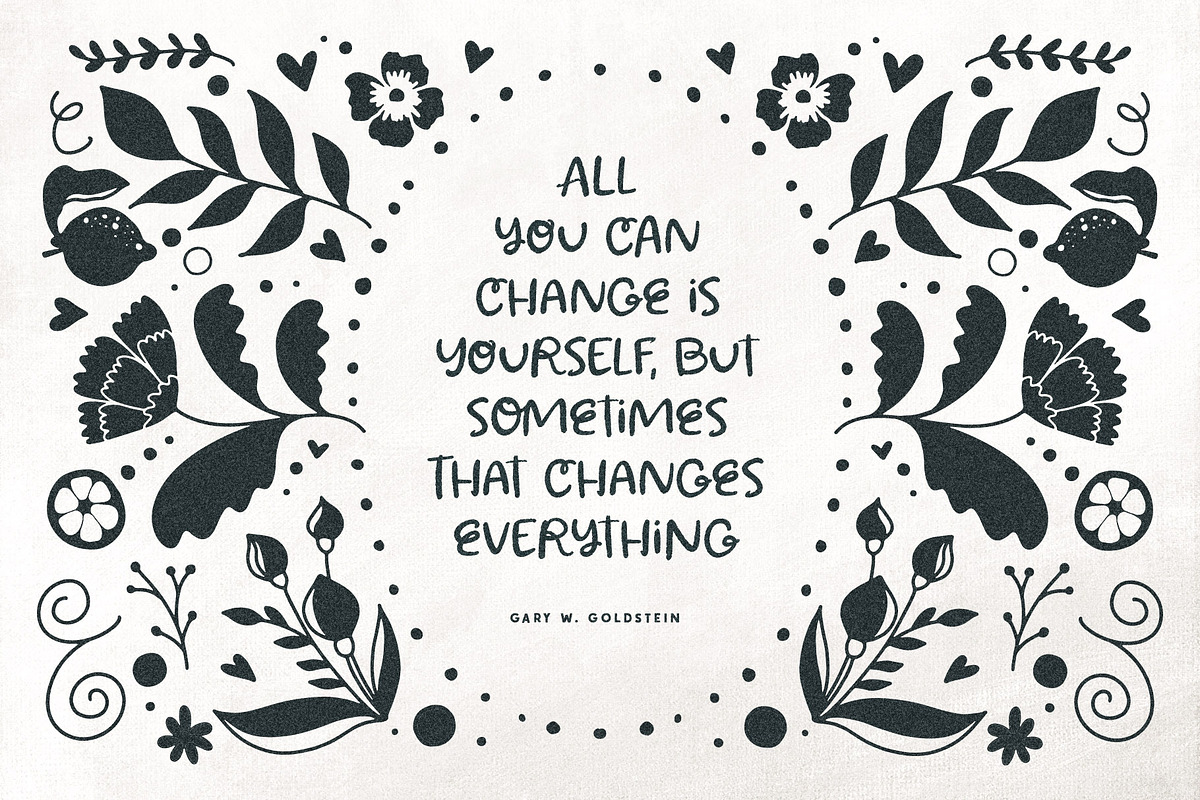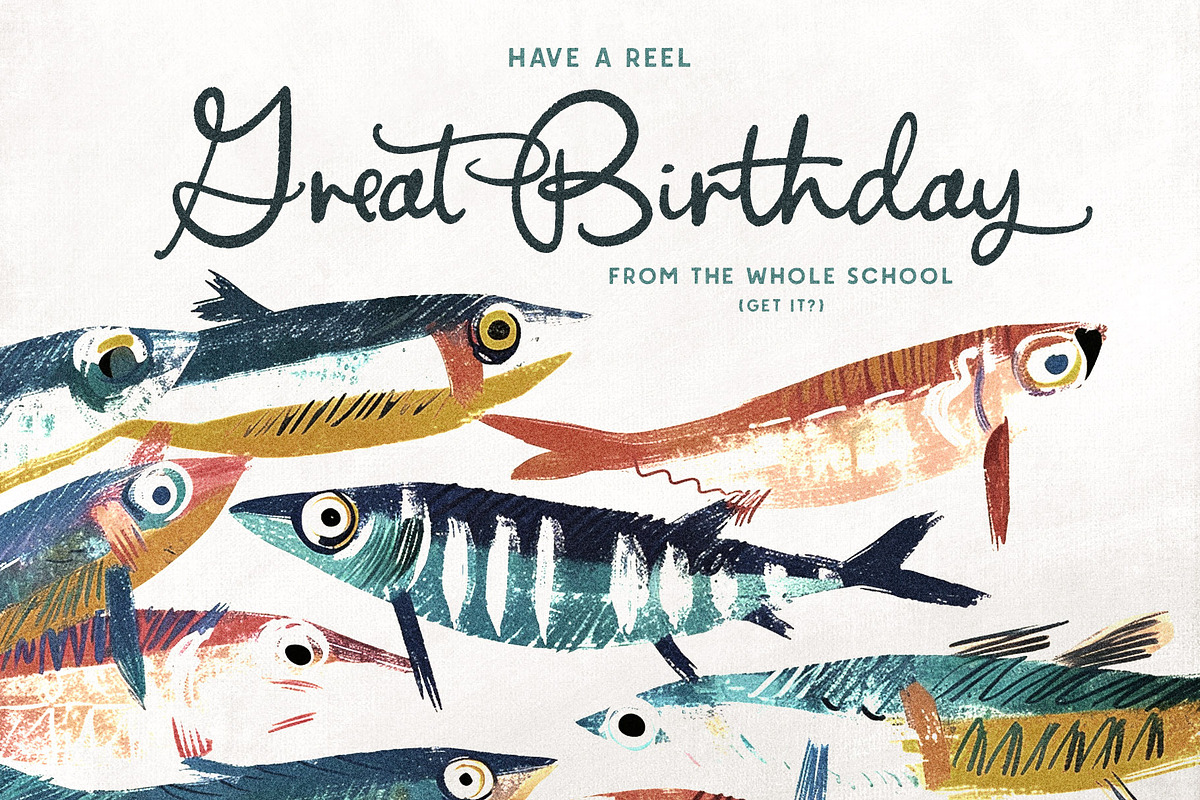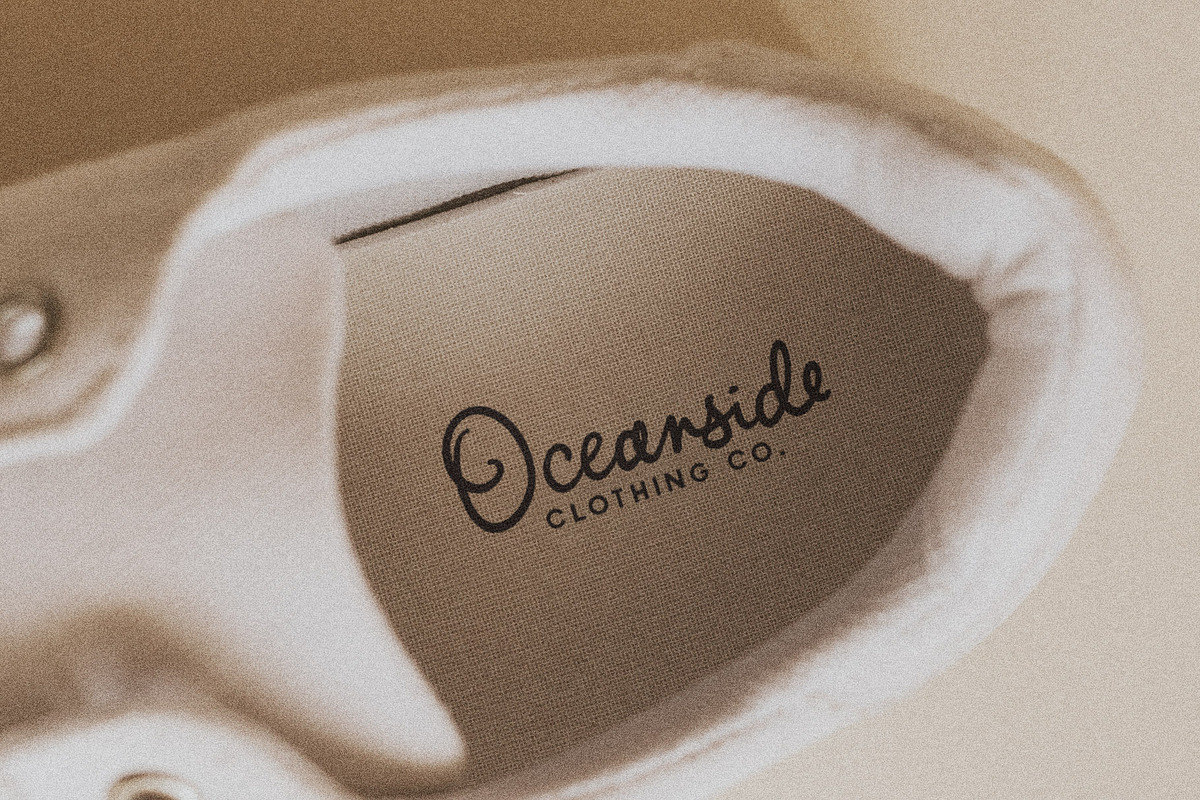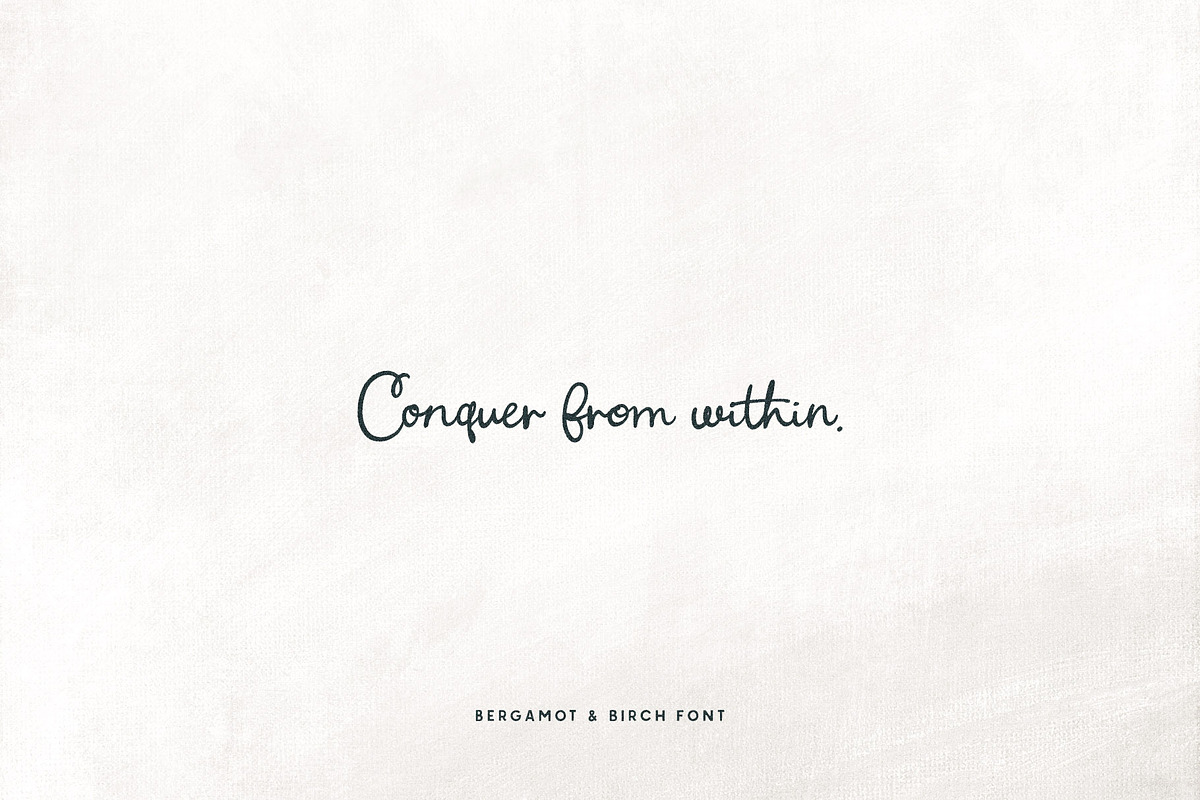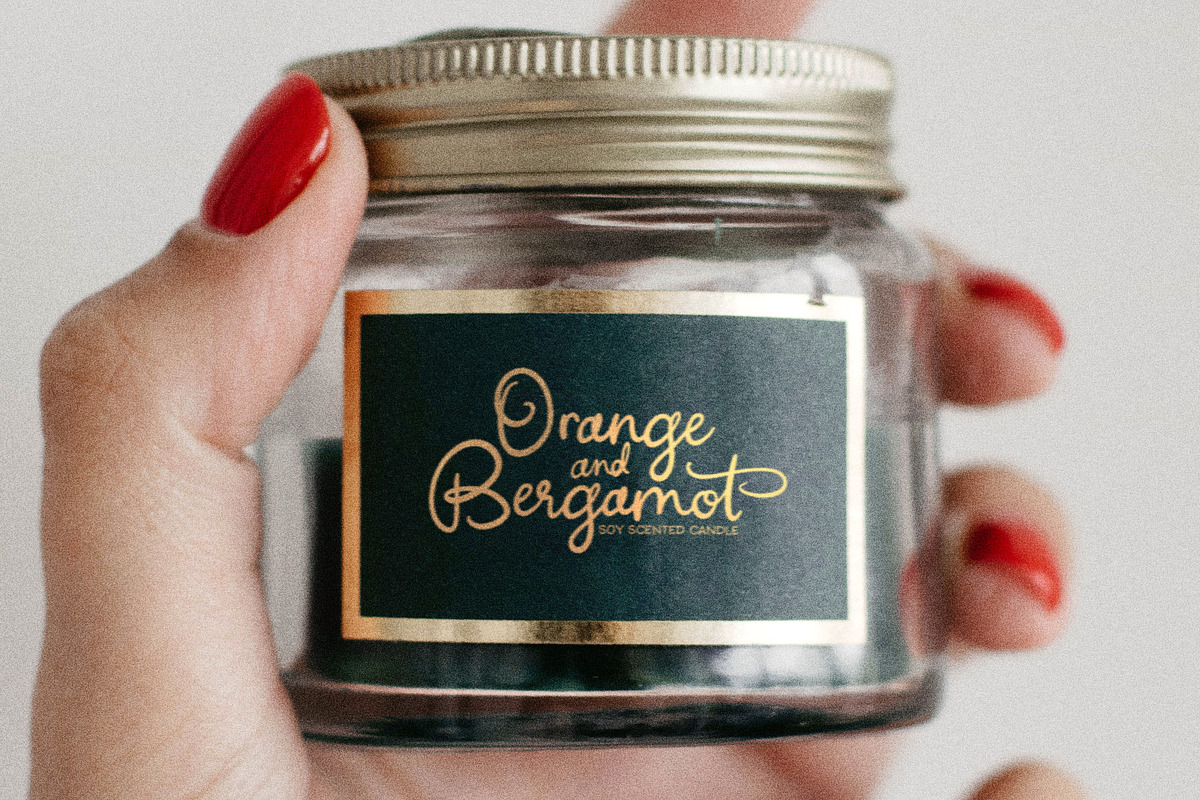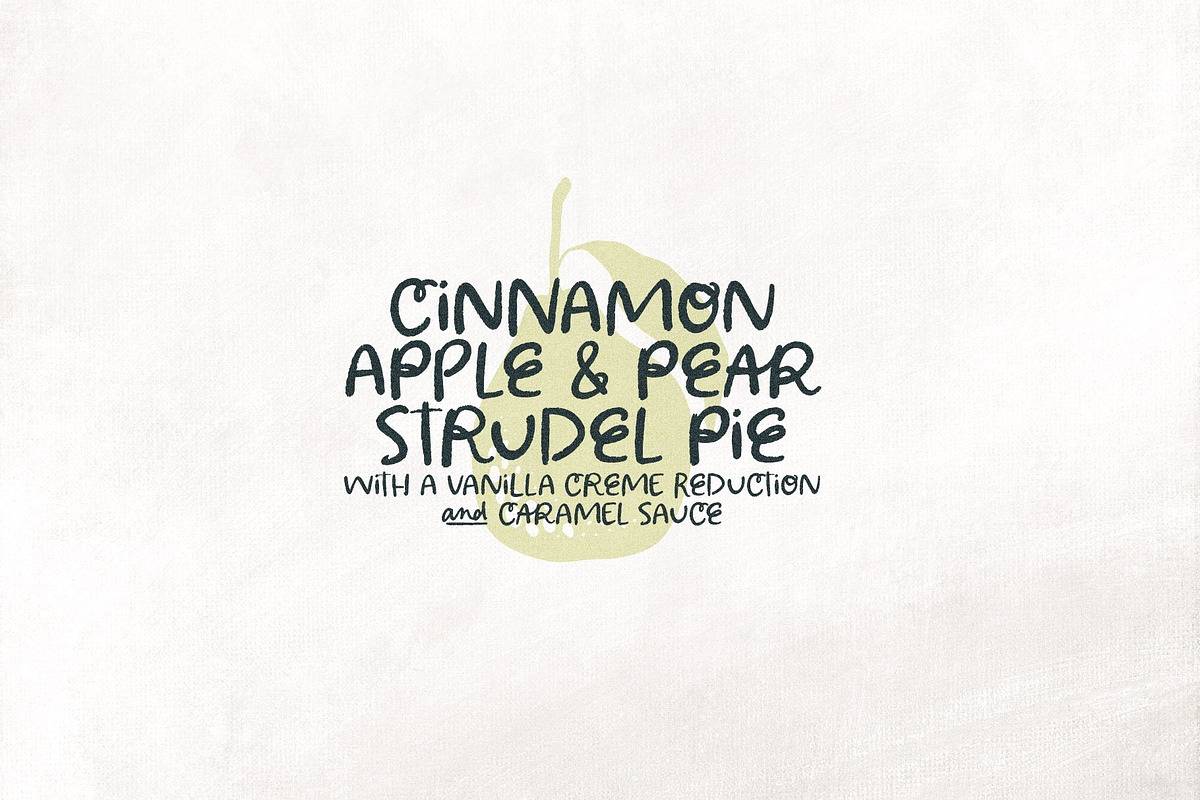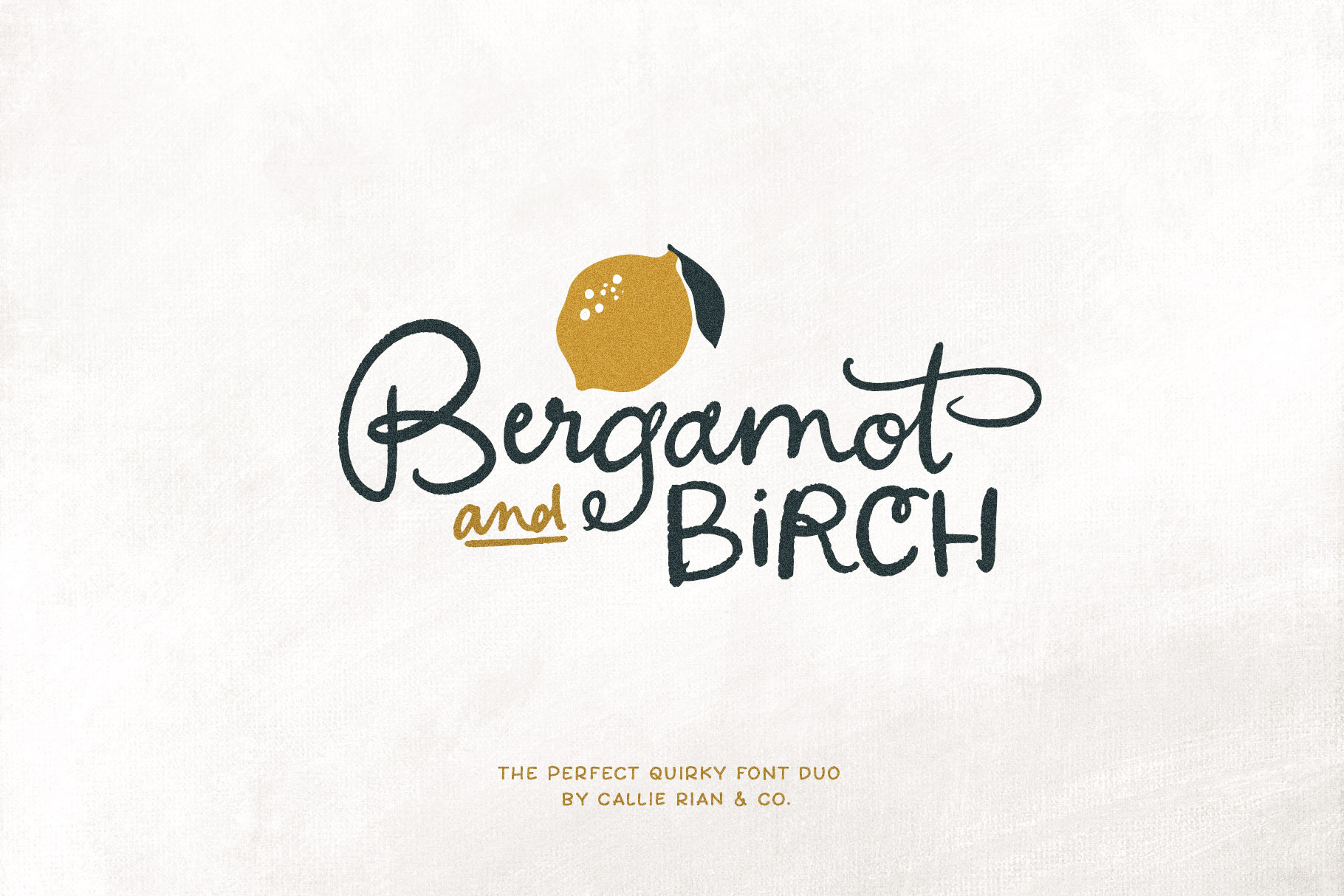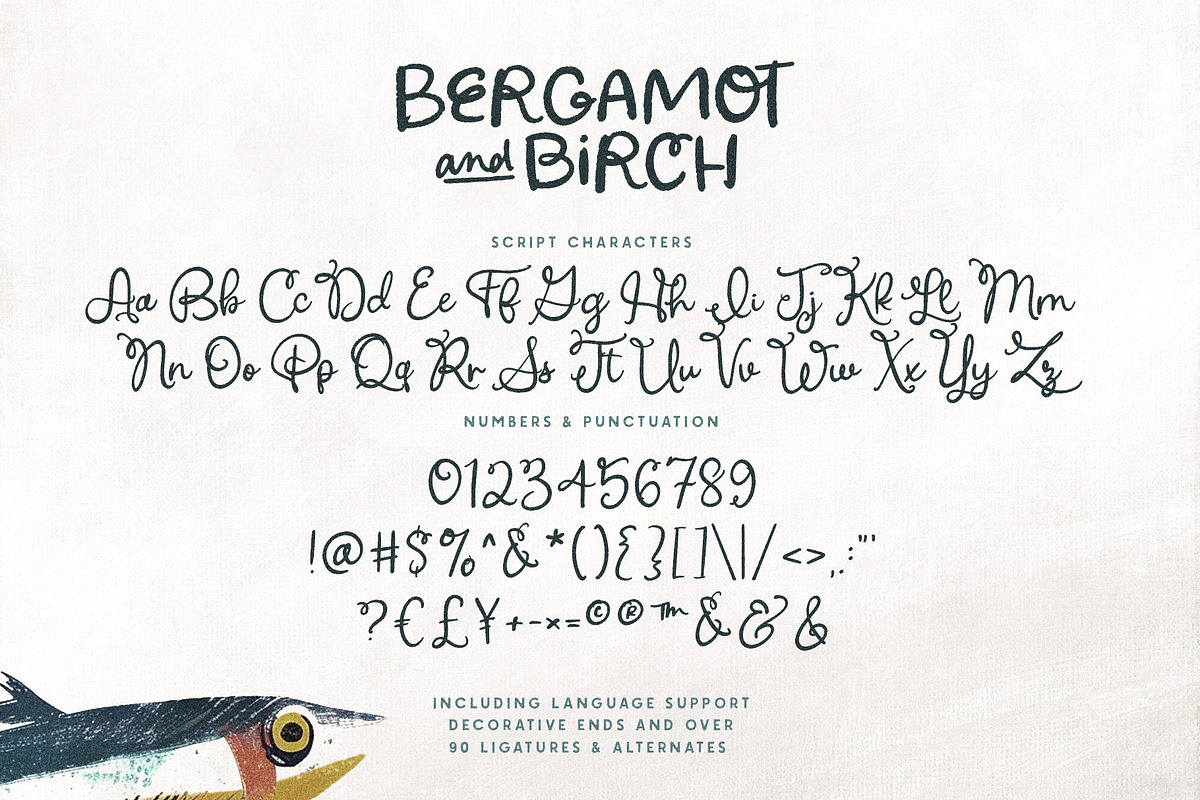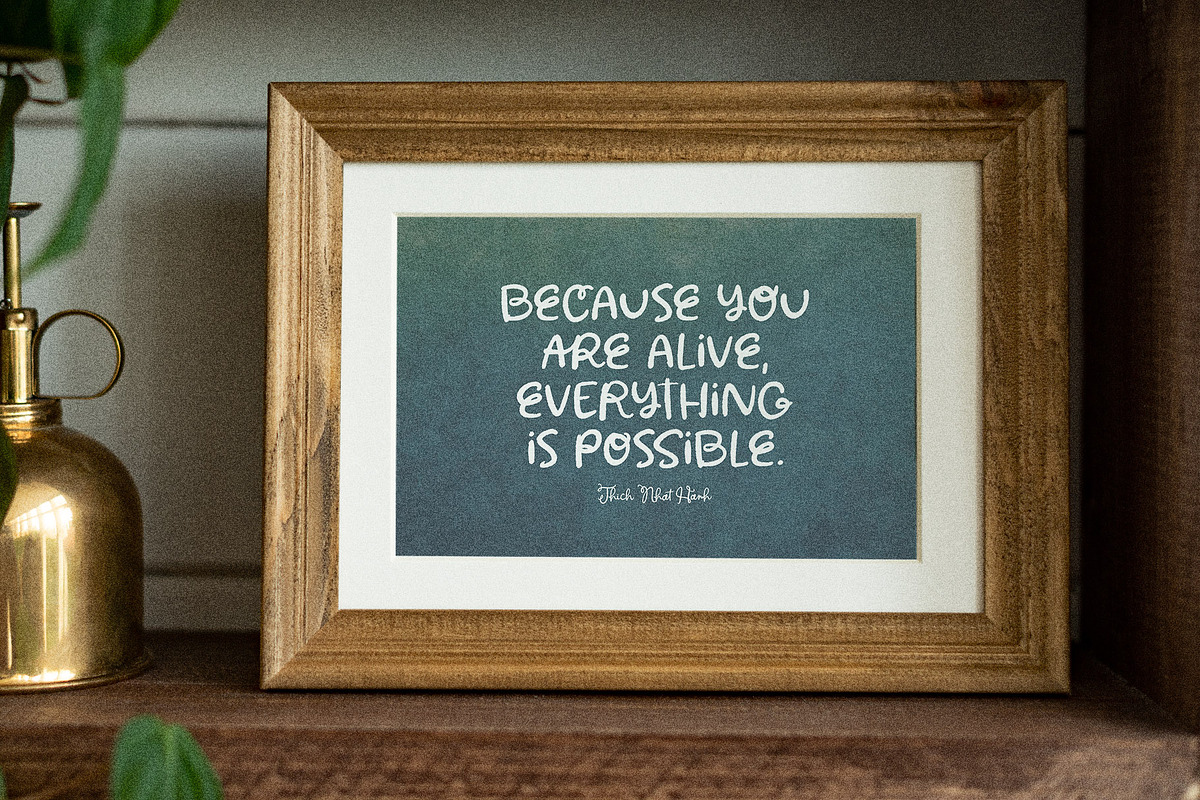
Bergamot & Birch Font Duo
Say hello to Bergamot & Birch, a quirky font duo designed to mimic the imperfections in organic handwriting. This sweet duo boasts over 90 alternates and ligatures, along with language support and select catchwords in both the sans serif and script. Bergamot & Birch is so adorable on branding, greeting cards, quotes, books and packaging and so much more! So get creative and have fun with this darling duo!
- Over 90 ligatures and alternates with select catchwords.
- These fonts are NOT smooth, and likely won't work with Cricut & Silhouette.